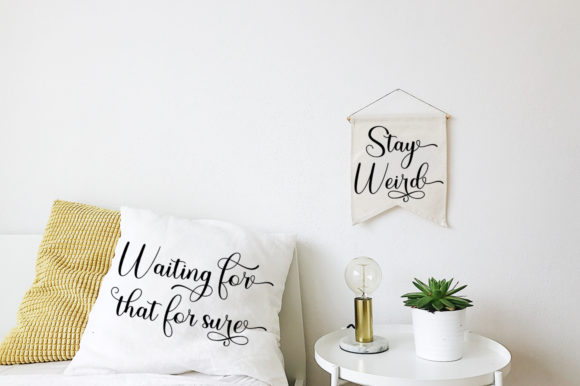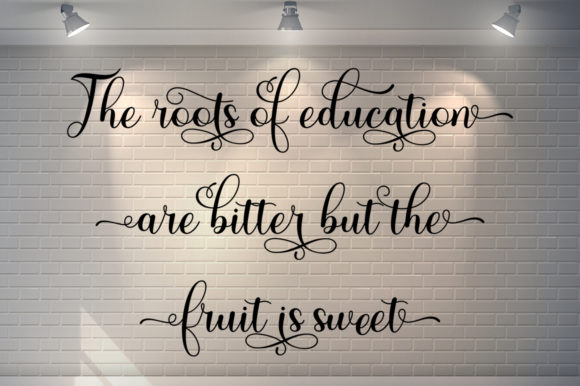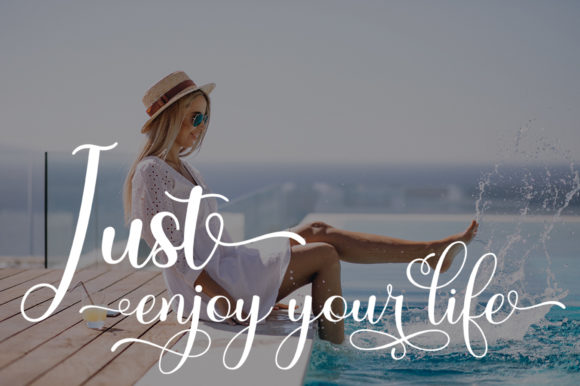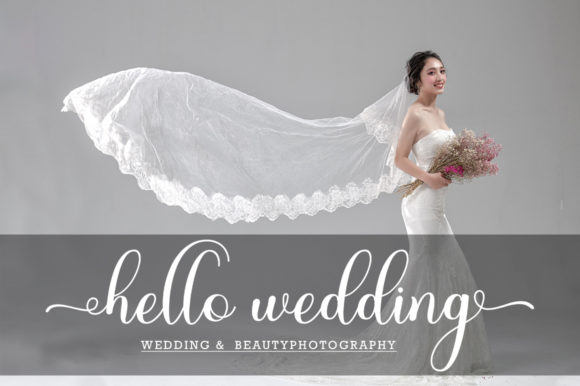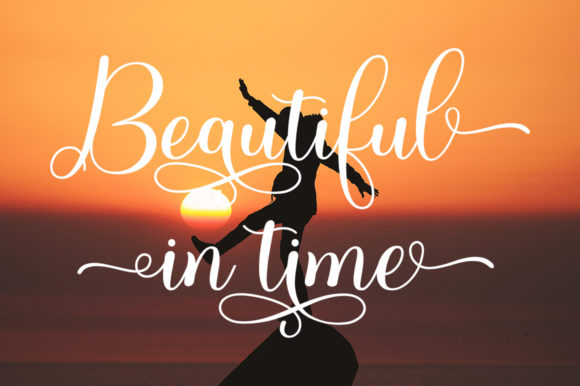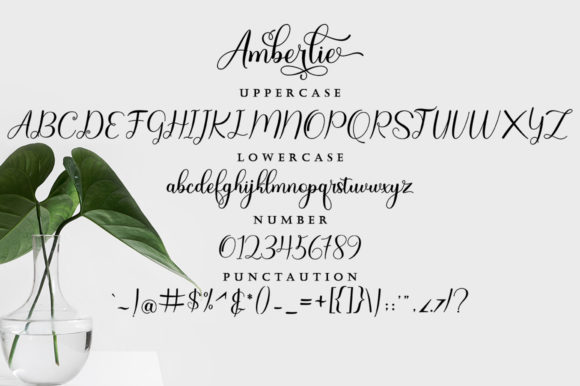
Introducing Amberlie Font: Elevate Your Designs with Elegance and Flair
In the world of typography, few fonts capture the essence of elegance and sophistication as beautifully as Amberlie Font. This stunning handwritten font is designed to add a touch of class and refinement to any design project, making it a perfect choice for designers and crafters looking to elevate their work. With its flowing lines, gorgeous glyphs, and beautiful alternates, Amberlie Font is sure to become a favorite in your collection.
A Font that Exudes Elegance and Sophistication
Amberlie Font is a true masterpiece, boasting an incredibly elegant and flowing design that is sure to impress. Its varying baseline and smooth lines create a sense of movement and fluidity, giving your designs a dynamic and eye-catching appeal. Whether you’re working on wedding invitations, thank you cards, quotes, greeting cards, logos, business cards, or any other design that needs a handwritten touch, Amberlie Font is the perfect choice.
One of the things that sets Amberlie Font apart is its versatility. This beautiful font can be used for a wide range of design projects, including:
- Wedding invitations and stationery: Add a touch of romance and elegance to your wedding designs with Amberlie Font.
- Thank you cards and greeting cards: Create personalized and heartfelt cards with this beautiful handwritten font.
- Quotes and posters: Use Amberlie Font to add a touch of sophistication and style to your inspirational quotes and posters.
- Logos and branding: Create a lasting impression with Amberlie Font, perfect for logos, business cards, and other branding materials.
- Crafting and DIY projects: Add a personal touch to your crafting and DIY projects, such as scrapbooking, journaling, and more.
Key Features of Amberlie Font
So, what makes Amberlie Font so special? Here are just a few of its key features:
- Varying baseline: Creates a sense of movement and fluidity, adding a dynamic touch to your designs.
- Smooth lines: Elegant and refined, perfect for creating sophisticated designs.
- Gorgeous glyphs: Adds a touch of whimsy and personality to your designs.
- Stunning alternates: Provides a range of options for customizing your designs and adding a unique touch.
Why Choose Amberlie Font?
With so many fonts to choose from, why should you choose Amberlie Font for your design projects? Here are just a few reasons:
- Elegance and sophistication: Amberlie Font exudes refinement and poise, perfect for designs that require a touch of class.
- Versatility: This beautiful font can be used for a wide range of design projects, from wedding invitations to logos and branding.
- Unique and eye-catching: With its gorgeous glyphs and stunning alternates, Amberlie Font is sure to make your designs stand out.
In conclusion, Amberlie Font is a truly exceptional handwritten font that is sure to elevate your designs to new heights. With its elegant and flowing design, varying baseline, smooth lines, gorgeous glyphs, and stunning alternates, this beautiful font is perfect for a wide range of design projects. Whether you’re a designer or crafter, Amberlie Font is a must-have addition to your collection. So why wait? Download Amberlie Font today and start creating stunning designs that exude elegance and sophistication.